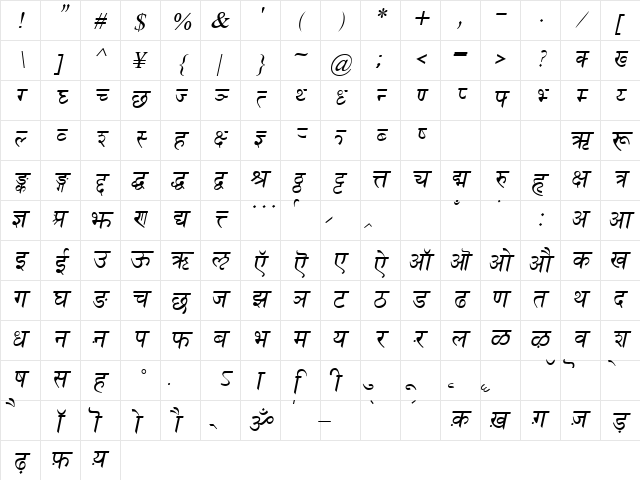
DevanagariDelhiSSK Italic Font Preview
DevanagariDelhiSSK Italic
DevanagariDelhiSSK Italic Font Details
Design Context for DevanagariDelhiSSK Typeface
DevanagariDelhiSSK offers clean, dependable letterforms without strong stylistic allegiance, making it a practical choice for designers who need flexibility. The dynamic lean of this cut emphasises speed and emphasis in any layout.
Pro Tip: Try DevanagariDelhiSSK for annotation and caption copy alongside an upright companion — the contrast in angle creates a dynamic but ordered typographic system.